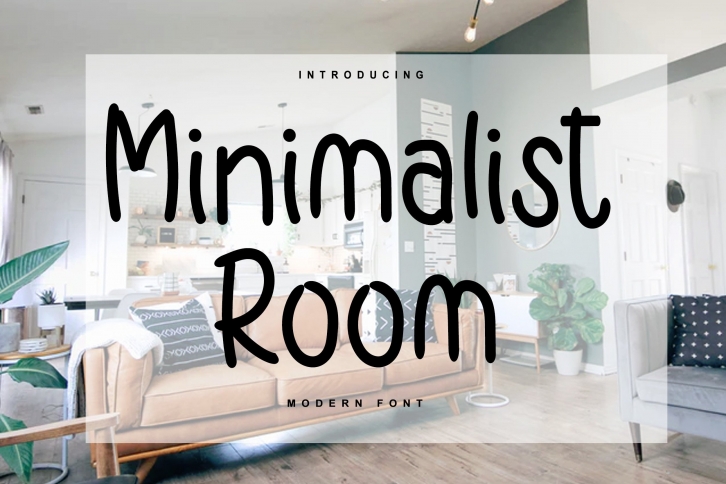
Minimalist Room is a simple and natural handwritten font. It will elevate a wide range of crafting ideas, from cards, to branding, labels and much more.